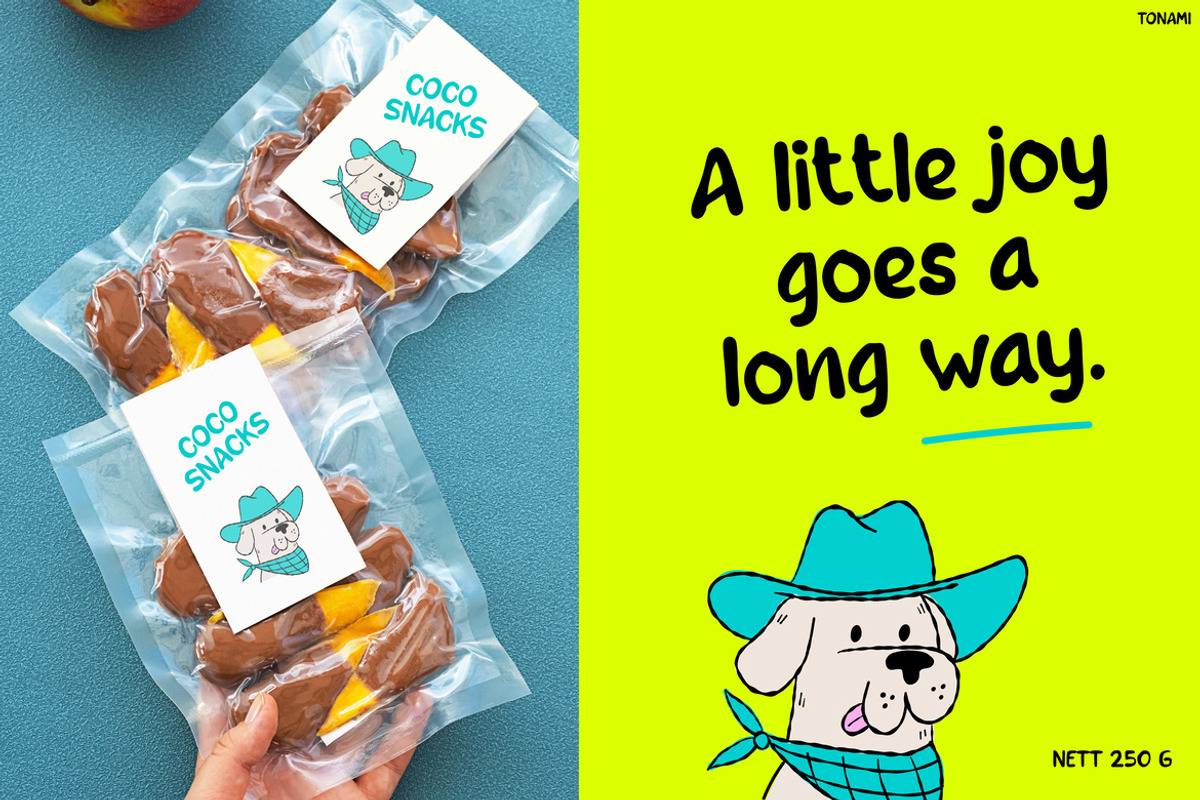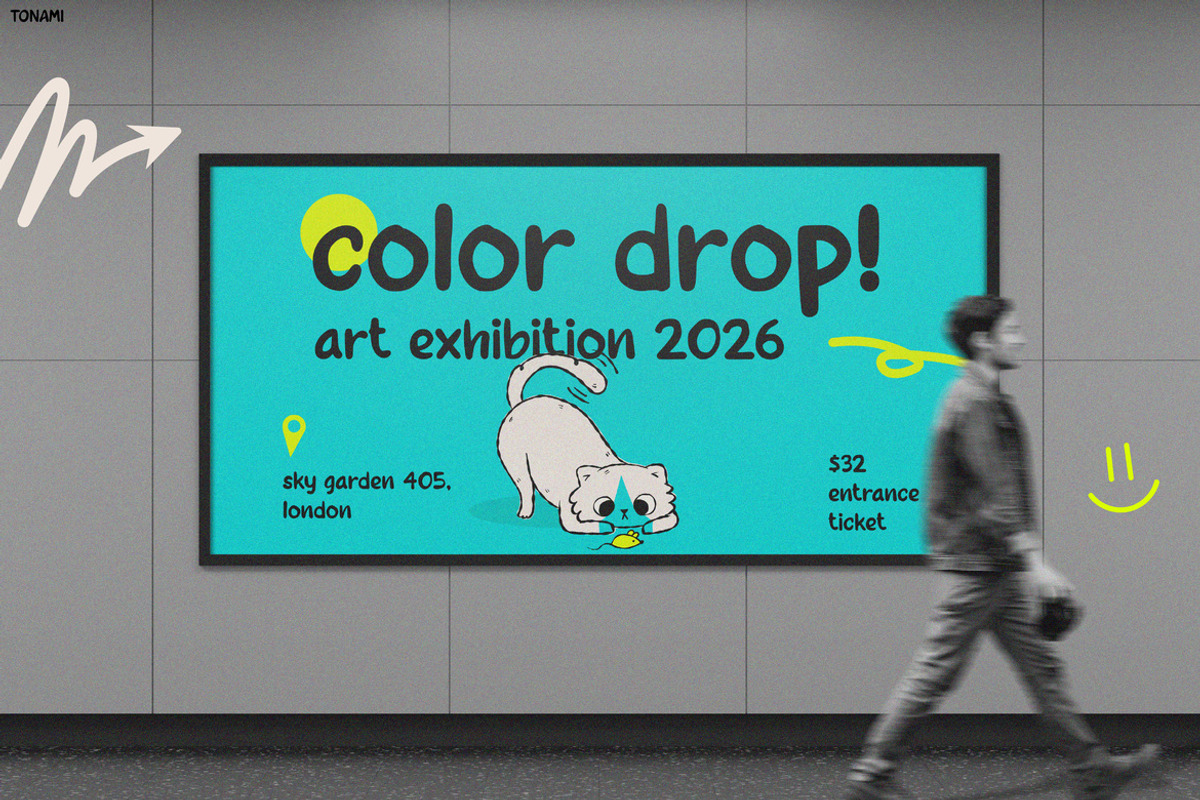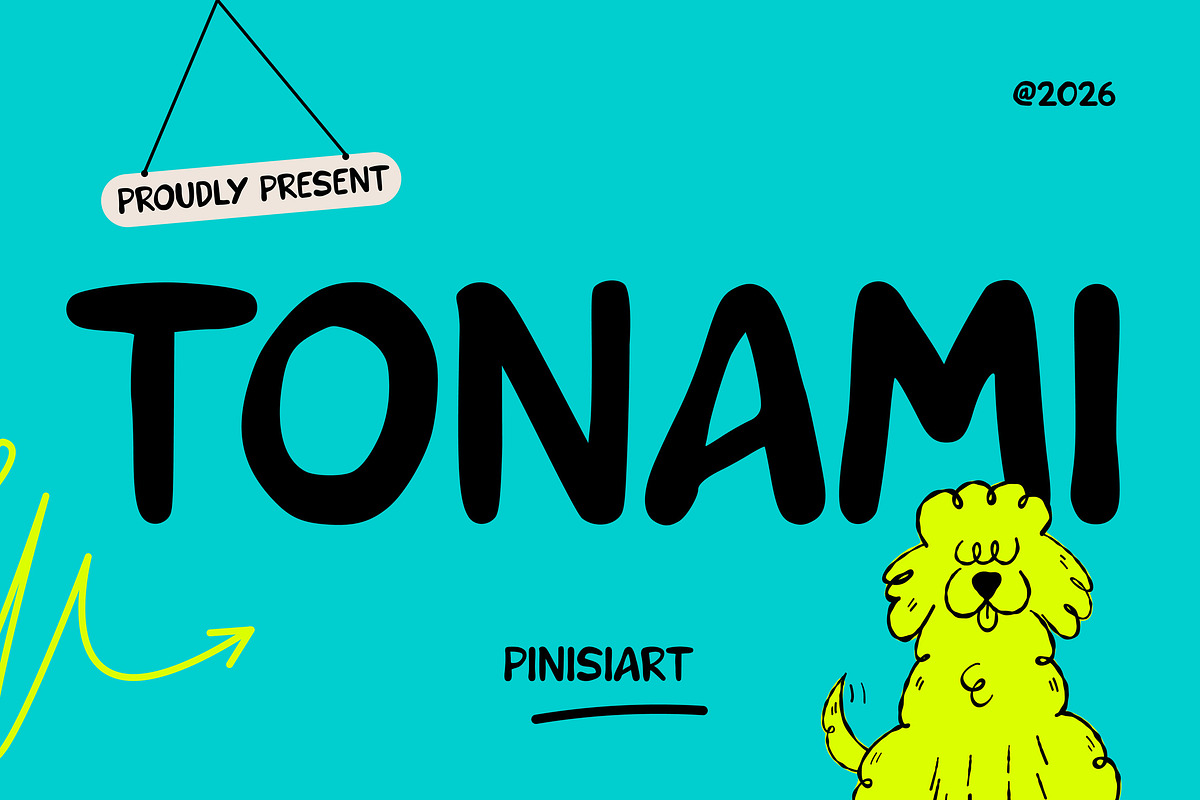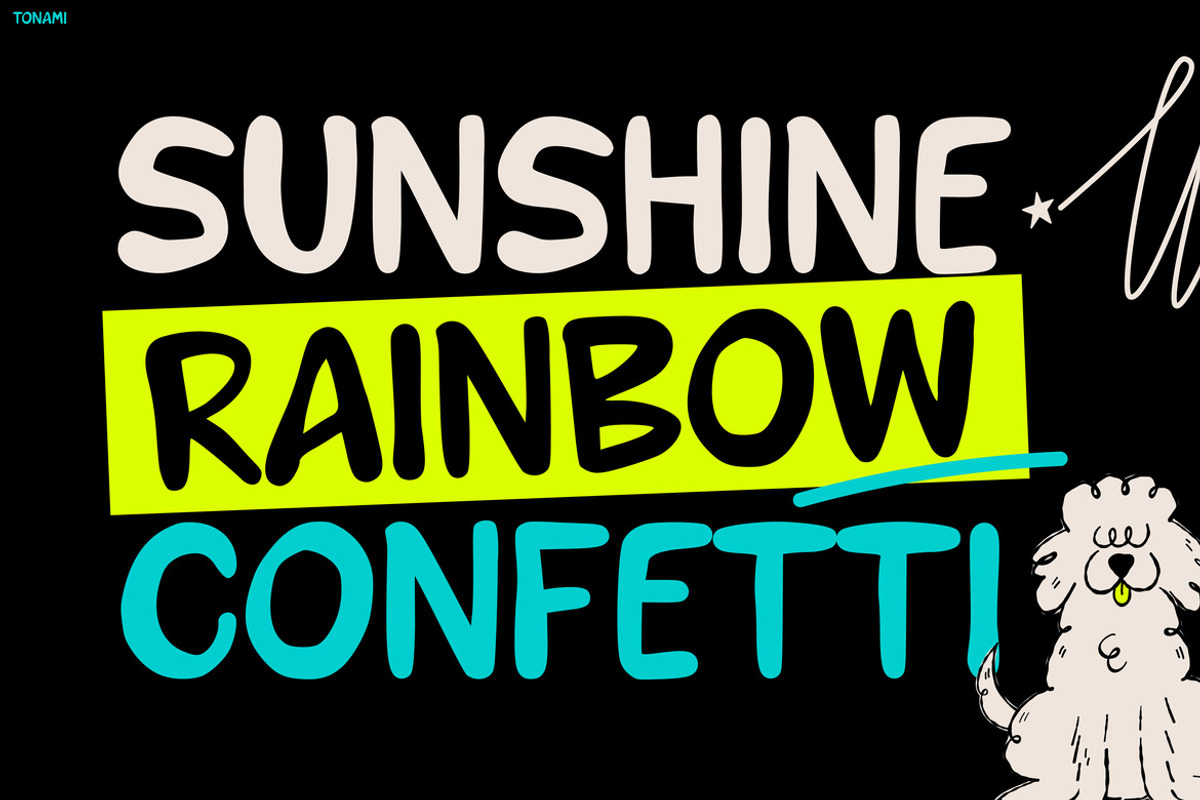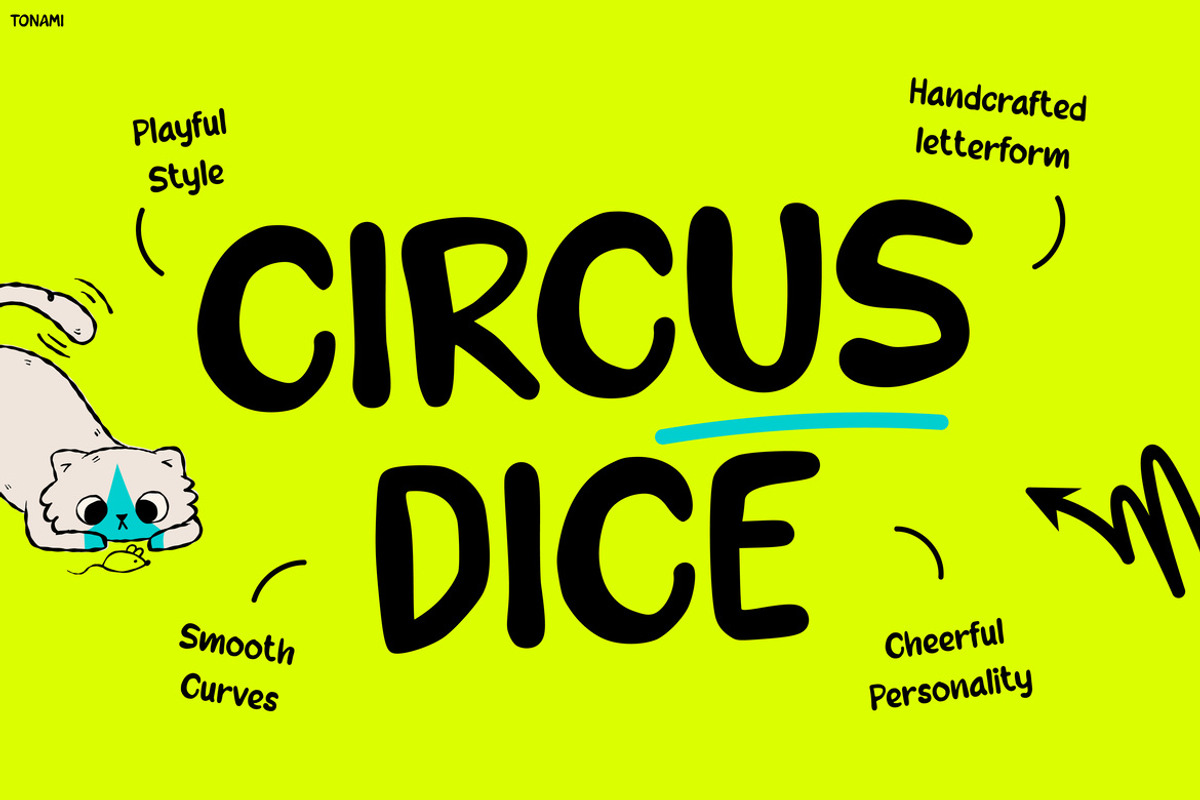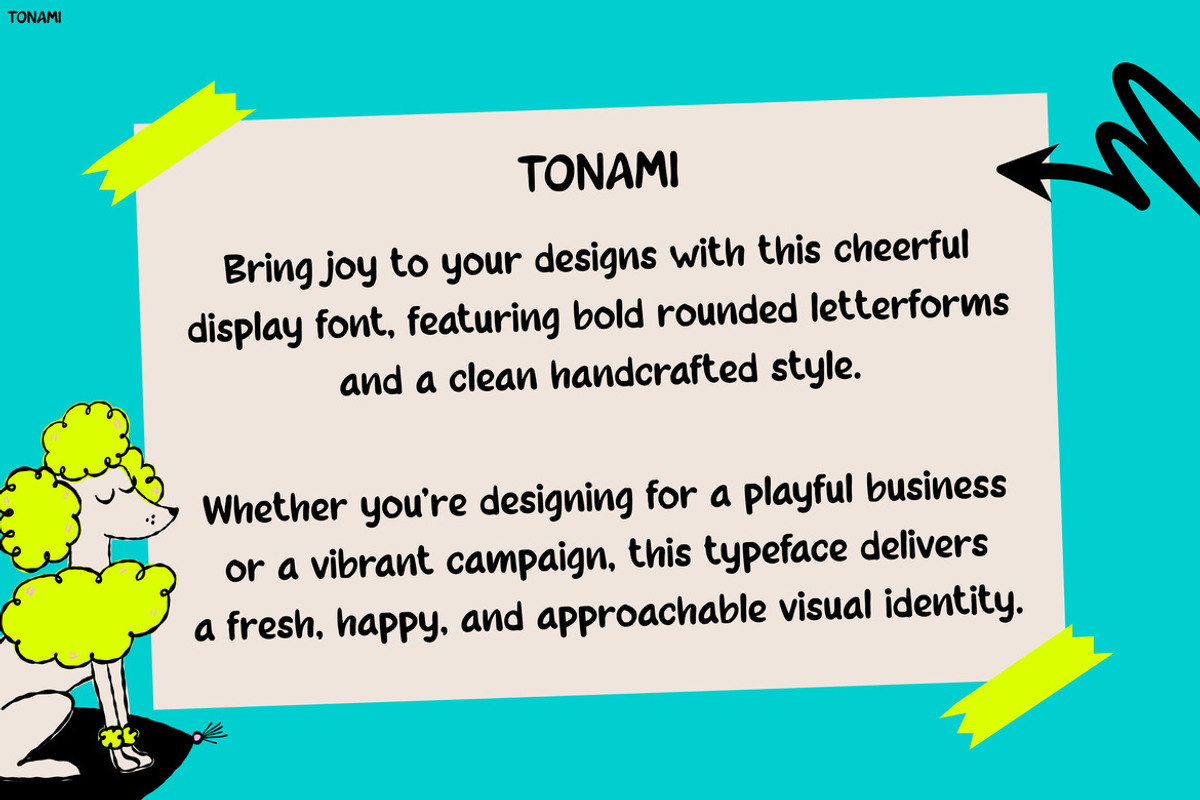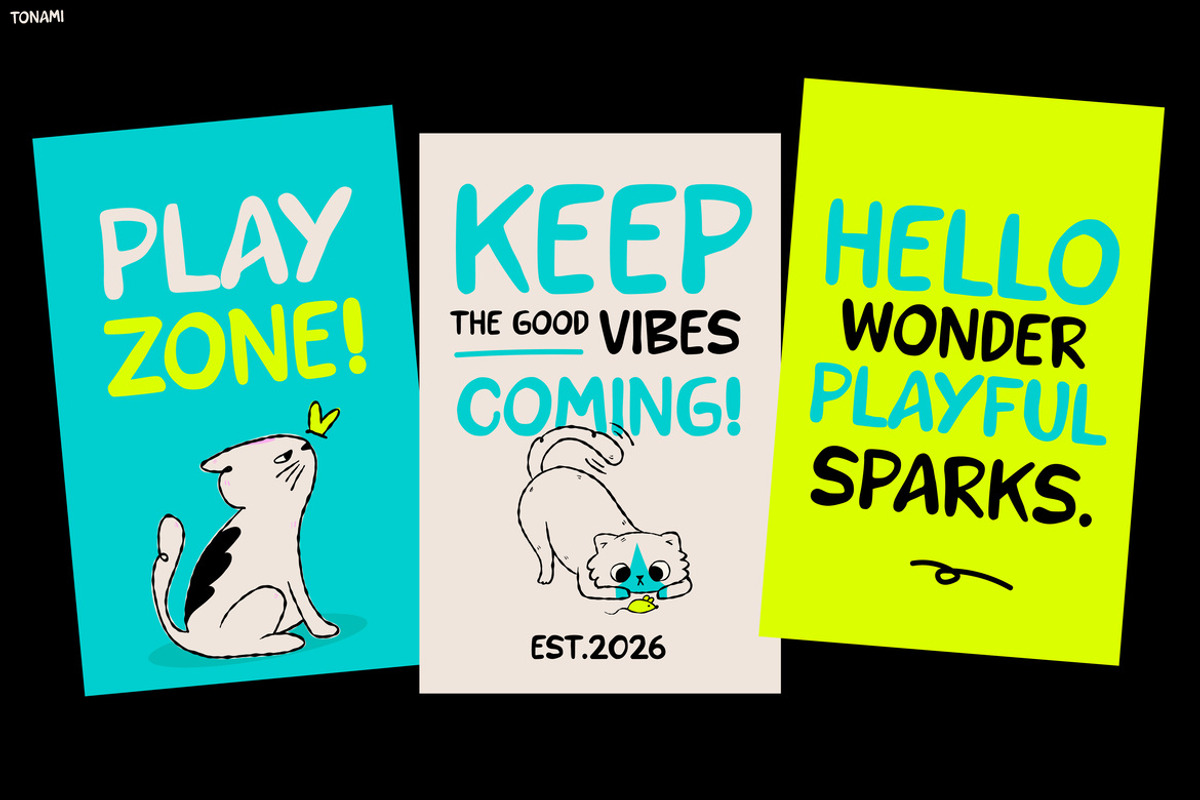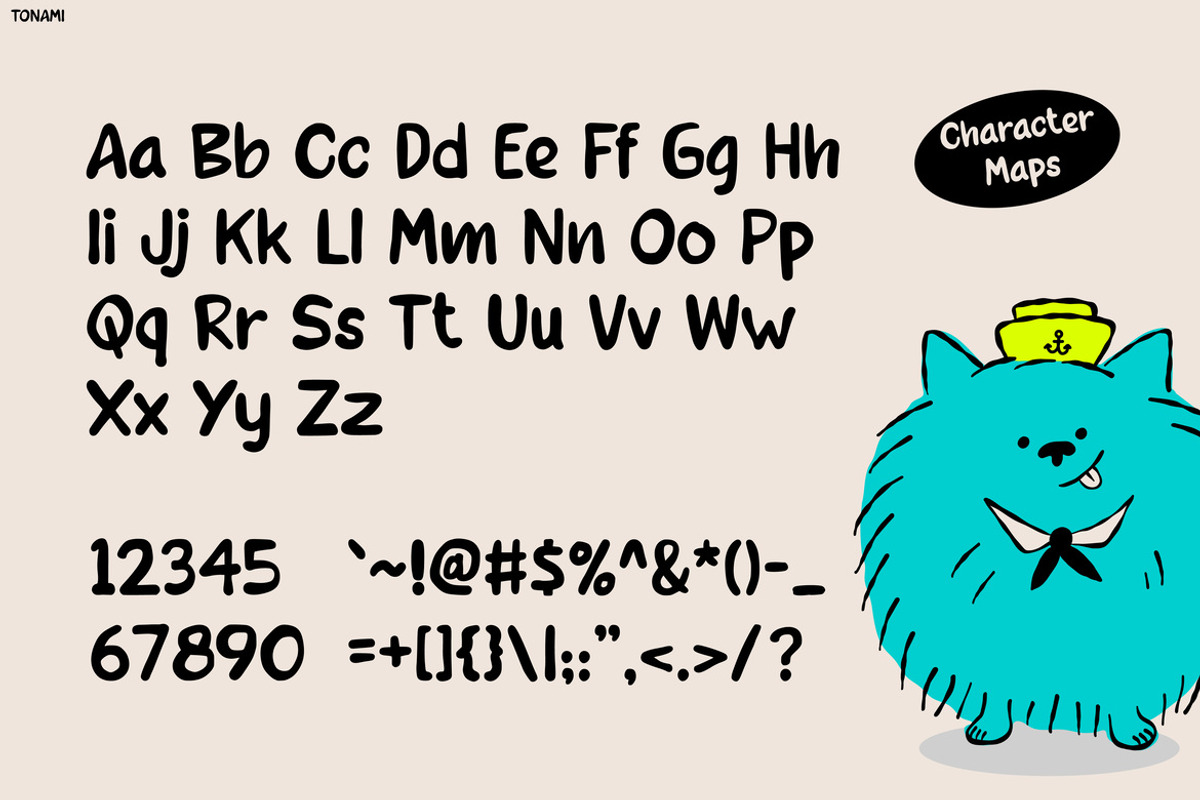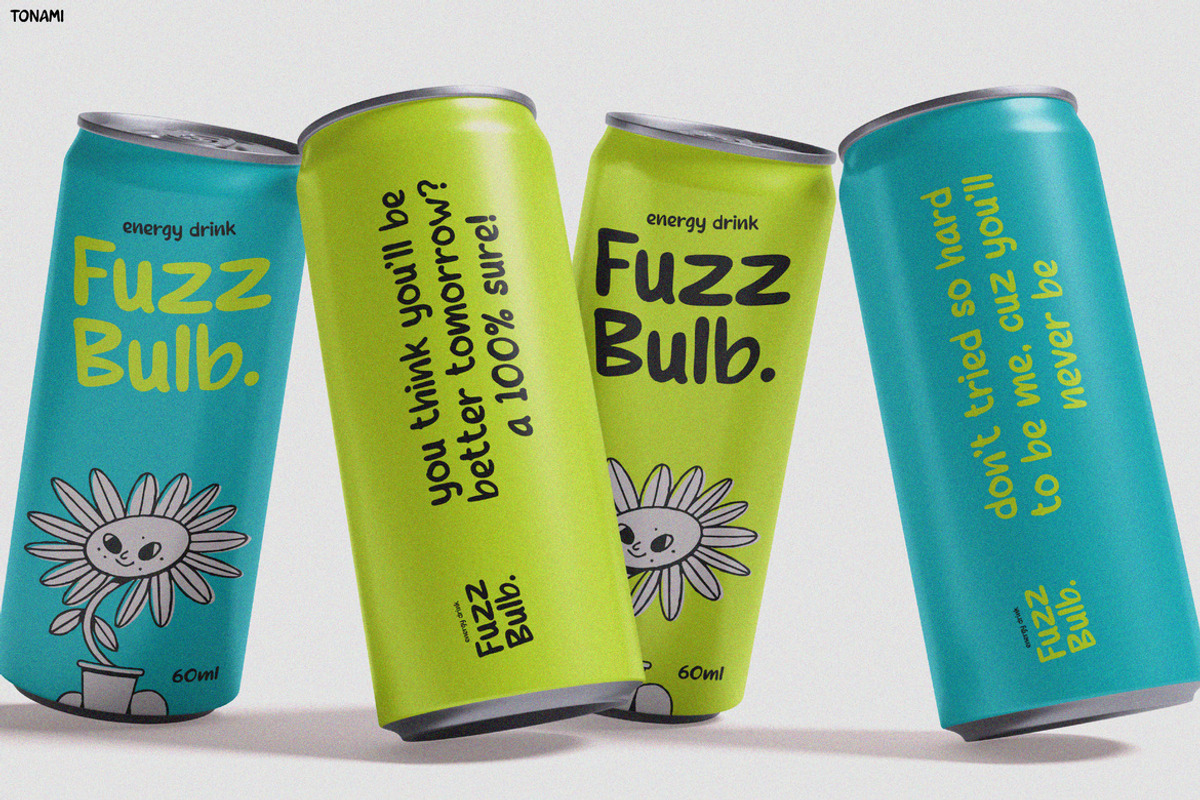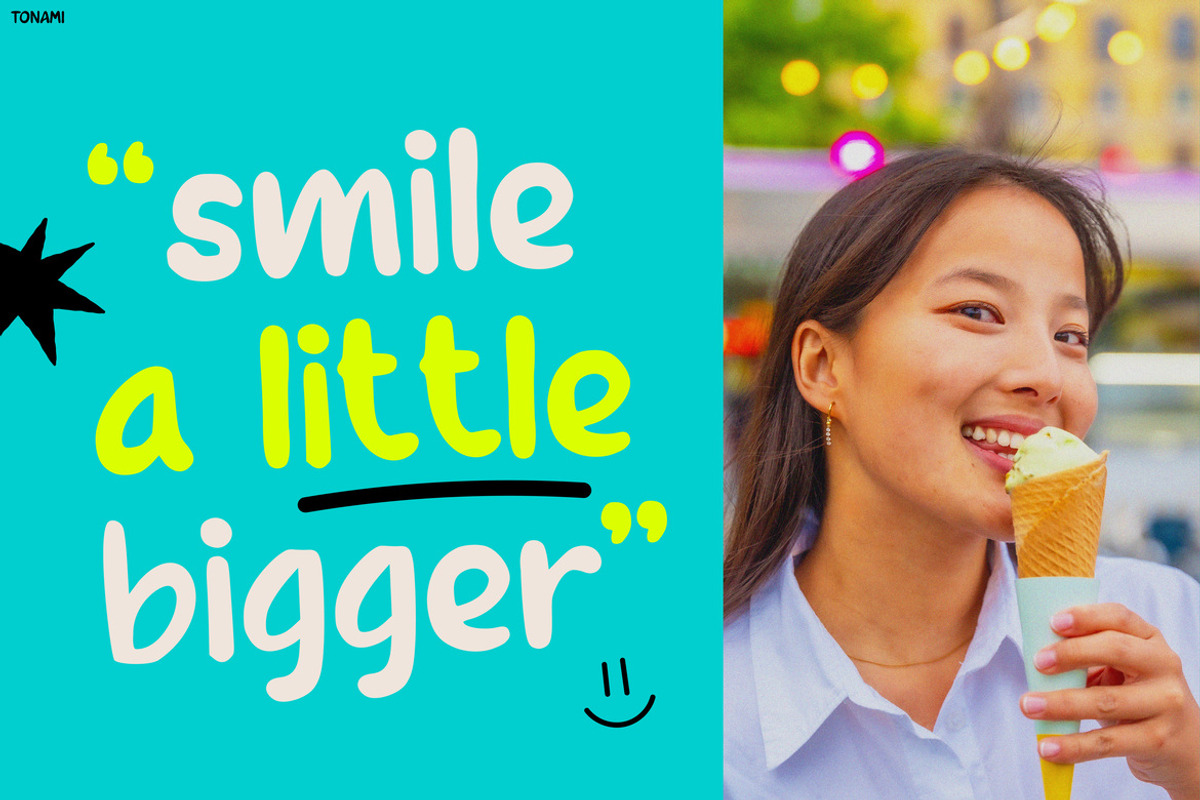
Tonami
Kids Font Tonami – Bright Colors. Big Smiles. Endless Fun.
Kids Font Tonami brings cheerful energy to every design with its playful handwritten style, rounded letterforms, and lively personality. Unlike ordinary kids fonts, Tonami blends bold, friendly shapes with a natural handcrafted feel, so every word looks warm, expressive, and full of imagination. Moreover, the balanced proportions keep every headline easy to read, while the fun character adds instant charm to both print and digital projects. As a result, your artwork feels more engaging and memorable. In addition, Tonami helps transform simple layouts into colorful experiences that instantly capture attention. Whether you’re creating for children, families, or playful brands, this font keeps every message bright, friendly, and full of life.